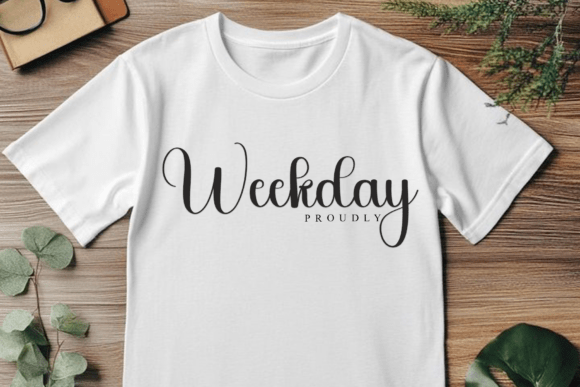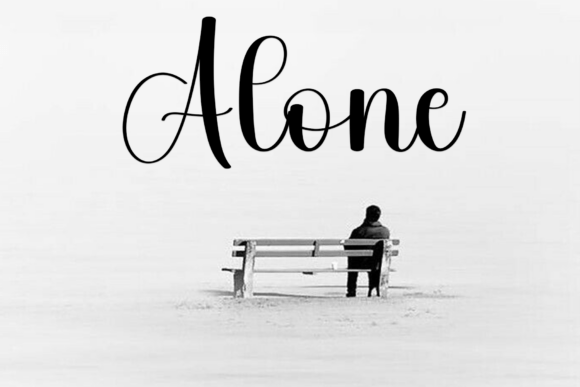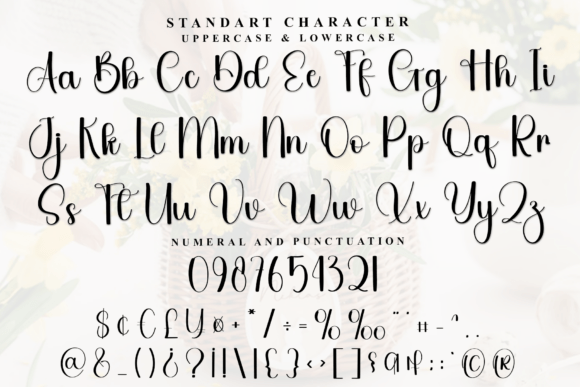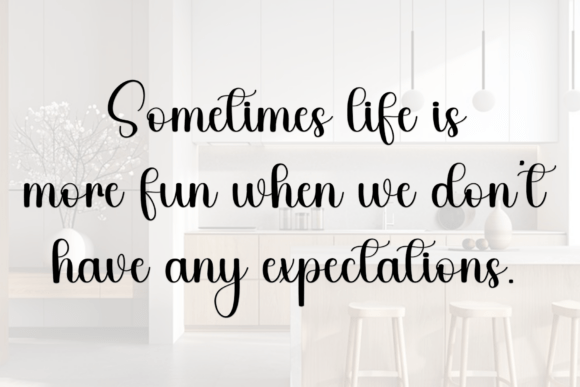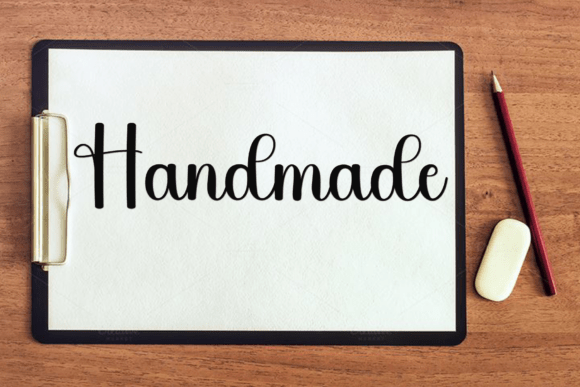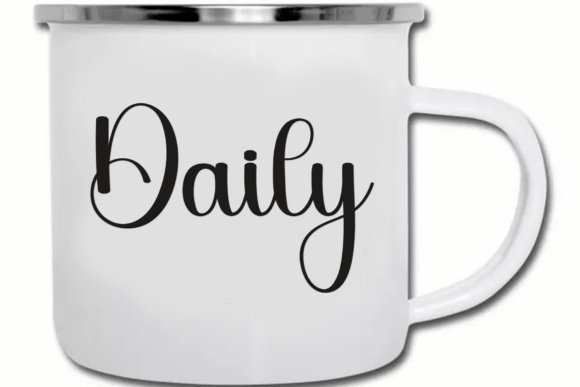
Elegant Valentine Font: The Perfect Choice for Your Design Projects
Are you looking for a font that exudes elegance and sophistication? Look no further than the Elegant Valentine Font. This exquisite handwritten font is masterfully designed to become a true favorite among designers and crafters. With its classy calligraphic influences and contemporary feel, it’s the perfect choice for bringing your projects to the highest levels.
What Makes Elegant Valentine Font So Special?
Elegant Valentine Font is a unique and beautiful font that is sure to make your designs stand out. Its elegant and refined appearance makes it perfect for a variety of projects, from wedding invitations and romantic greeting cards to branding and packaging design. The font’s calligraphic influences give it a touch of sophistication and luxury, while its contemporary feel ensures that it remains fresh and modern.
Key Features of Elegant Valentine Font
- Exquisite Handwritten Design: Elegant Valentine Font is a beautifully designed handwritten font that is sure to add a touch of elegance to your designs.
- Classy Calligraphic Influences: The font’s calligraphic influences give it a sophisticated and luxurious feel that’s perfect for high-end designs.
- Contemporary and Fresh: Despite its classic influences, Elegant Valentine Font feels contemporary and fresh, making it perfect for modern designs.
- Perfect for a Variety of Projects: Whether you’re working on a wedding invitation, a romantic greeting card, or a branding project, Elegant Valentine Font is the perfect choice.
Why Designers and Crafters Love Elegant Valentine Font
Designers and crafters love Elegant Valentine Font for its versatility and elegance. The font is perfect for a wide range of projects, from digital designs to print materials. Its elegant appearance makes it a great choice for designers who want to add a touch of sophistication to their work, while its contemporary feel ensures that it remains fresh and modern.
How to Use Elegant Valentine Font in Your Designs
Using Elegant Valentine Font in your designs is easy. Here are a few tips to get you started:
- Pair it with Other Fonts: Elegant Valentine Font pairs perfectly with other fonts, such as sans-serif fonts and script fonts.
- Use it for Headings and Titles: The font’s elegant appearance makes it perfect for headings and titles.
- Add it to Your Digital Designs: Elegant Valentine Font is perfect for digital designs, such as social media graphics and website headers.
Tips and Tricks for Getting the Most Out of Elegant Valentine Font
Here are a few tips and tricks for getting the most out of Elegant Valentine Font:
- Experiment with Different Colors: The font’s elegant appearance looks great in a variety of colors, from bold and bright to soft and pastel.
- Use it for Branding and Packaging Design: Elegant Valentine Font is perfect for branding and packaging design, adding a touch of sophistication and luxury to your designs.
- Try it with Different Backgrounds: The font’s elegant appearance looks great on a variety of backgrounds, from simple and solid to complex and patterned.
In conclusion, Elegant Valentine Font is a beautiful and elegant font that is sure to become a true favorite among designers and crafters. With its classy calligraphic influences and contemporary feel, it’s the perfect choice for bringing your projects to the highest levels. Whether you’re working on a wedding invitation, a romantic greeting card, or a branding project, Elegant Valentine Font is the perfect choice.